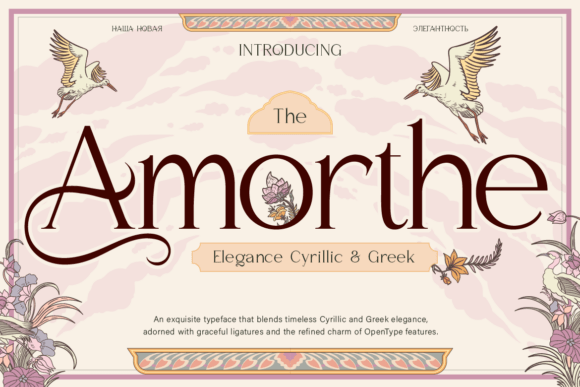
Amorthe Regular Font: Where Timeless Elegance Meets Modern Versatility
In the world of typography, few fonts manage to strike a balance between classic elegance and modern versatility. Amorthe, however, is a typeface that effortlessly bridges the gap between sophistication and charm, making it an ideal choice for a wide range of design applications. With its refined serifs, playful alternates, and nine carefully crafted weights, Amorthe is a font that can adapt seamlessly to various design needs, from luxury branding to editorial layouts and high-end packaging.
A Font with a Rich Linguistic Heritage
One of the standout features of Amorthe is its impressive linguistic range. This typeface supports multiple languages, including Cyrillic, Greek, and more, making it an excellent choice for global brands and publications. Whether you’re designing for a Western or non-Western market, Amorthe’s extensive language support ensures that your message is conveyed with clarity and sophistication.
Refined Serifs and Playful Alternates
Amorthe’s refined serifs are a hallmark of its classic elegance. The font’s serifs are delicate and refined, lending a touch of sophistication to any design. However, what truly sets Amorthe apart is its playful alternates. These alternates add a whisper of personality to every letterform, allowing designers to inject a touch of whimsy and creativity into their work. With Amorthe, you can create designs that are both refined and playful, making it an excellent choice for luxury brands and editorial publications.
Nine Weights for Every Design Need
Amorthe is available in nine carefully crafted weights, ranging from whisper-thin to bold and confident. This range of weights makes it easy to use Amorthe for a wide range of design applications, from headlines to body text. Whether you’re designing a luxury brand logo or a lengthy editorial piece, Amorthe’s weights ensure that your text is always legible and visually appealing.
Ideal for Luxury Branding and Editorial Layouts
Amorthe’s unique blend of classic elegance and modern versatility makes it an ideal choice for luxury branding and editorial layouts. Its refined serifs and playful alternates evoke a sense of sophistication and charm, while its range of weights ensures that it can be used for both headlines and body text. Whether you’re designing a fine wine label, an artisanal chocolate package, or a signature perfume advertisement, Amorthe is the perfect choice.
The Personification of Audrey Hepburn
If Amorthe were a person, it would be Audrey Hepburn – graceful, multilingual, and full of subtle surprises that reveal themselves with every glance. Like Audrey, Amorthe exudes a sense of elegance and sophistication, while also possessing a playful and charming side. This personification is a testament to the font’s versatility and timeless appeal.
High-End Packaging and Beyond
Amorthe’s applications extend far beyond luxury branding and editorial layouts. Its refined serifs and playful alternates make it an excellent choice for high-end packaging, including fine wine, artisanal chocolates, signature perfumes, and premium skincare. Additionally, Amorthe’s range of weights and linguistic support make it suitable for a wide range of design applications, from corporate branding to digital interfaces.
In conclusion, Amorthe Regular Font is a typeface that effortlessly balances timeless elegance with modern versatility. Its refined serifs, playful alternates, and nine carefully crafted weights make it an ideal choice for luxury branding, editorial layouts, and high-end packaging. With its extensive linguistic support and PUA encoding, Amorthe is a font that can adapt seamlessly to various design needs, making it a valuable addition to any designer’s toolkit.
Key Takeaways:
- Amorthe is a typeface that balances classic elegance with modern versatility.
- Supports multiple languages, including Cyrillic, Greek, and more.
- Refined serifs and playful alternates add a touch of sophistication and whimsy.
- Nine carefully crafted weights for use in headlines and body text.
- Ideal for luxury branding, editorial layouts, and high-end packaging.